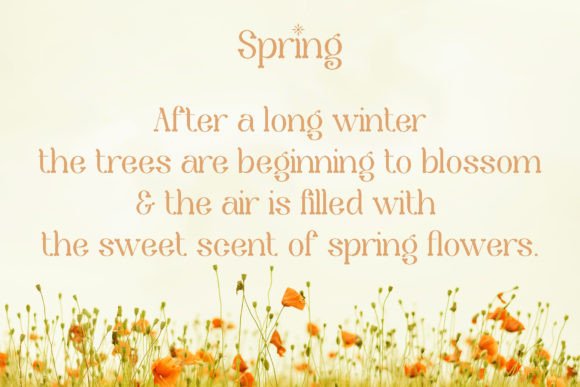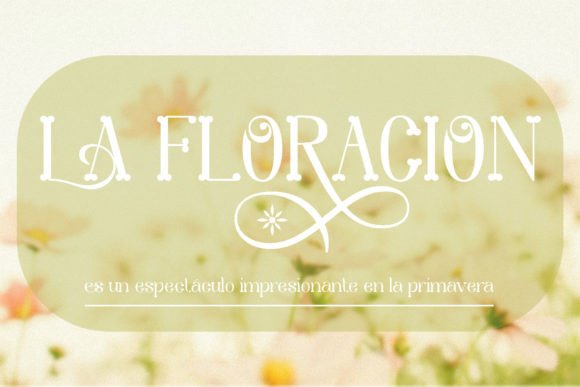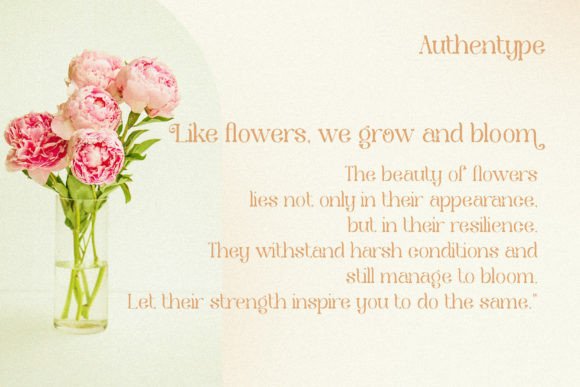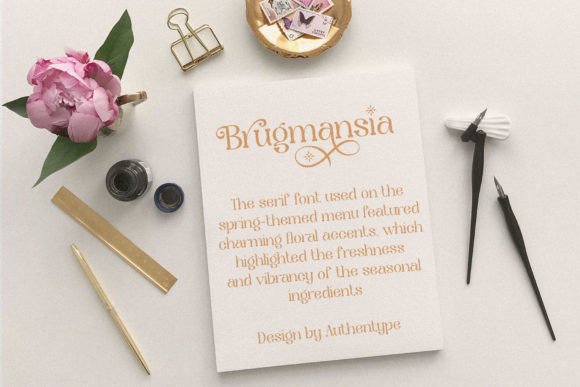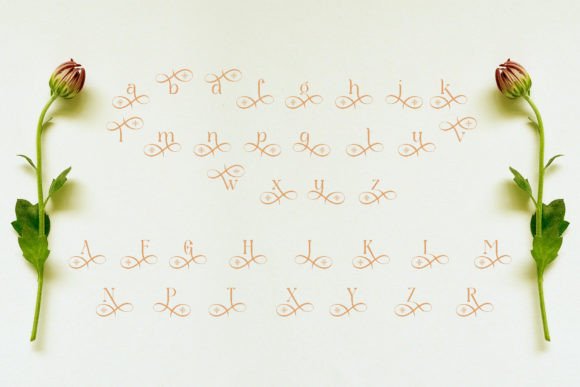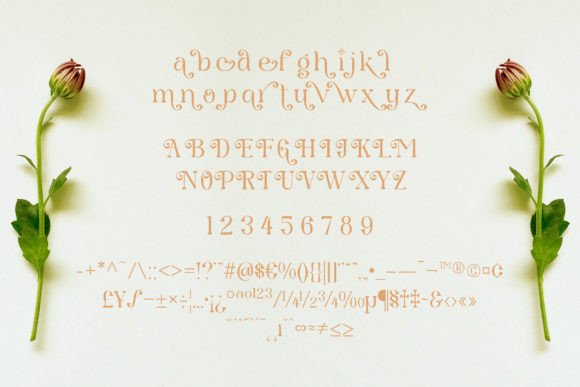
Introducing Brugmansia Font: Elevate Your Designs with Elegance and Sophistication
In the world of typography, few fonts manage to capture the essence of nature’s beauty as exquisitely as Brugmansia Font. Named after the stunning Brugmansia flower, this serif font is a masterpiece of design, blending delicate curves and graceful lines to create a truly unique visual experience. Whether you’re a designer, crafter, or simply someone who appreciates the art of typography, Brugmansia Font is sure to captivate you with its elegance and sophistication.
The Inspiration Behind Brugmansia Font
The Brugmansia flower, also known as the Angel’s Trumpet, is a rare and exotic bloom that has long been admired for its breathtaking beauty. With its trumpet-shaped petals and delicate texture, it’s a flower that exudes refinement and luxury. Brugmansia Font draws inspiration from the intricate details of this flower, translating its elegance into a typographic masterpiece. Each letterform is carefully crafted to reflect the flower’s unique shape and texture, making Brugmansia Font a true work of art.
Design Characteristics of Brugmansia Font
Brugmansia Font boasts a range of design characteristics that make it an exceptional choice for various design projects. Some of its key features include:
- Delicate Curves: Brugmansia Font features smooth, flowing curves that echo the petals of the Brugmansia flower. These curves add a touch of softness and femininity to the font, making it perfect for designs that require a subtle yet sophisticated look.
- Graceful Lines: The font’s lines are carefully crafted to create a sense of fluidity and movement. This makes Brugmansia Font ideal for designs that require a sense of dynamism and energy.
- Serif Details: The serif details in Brugmansia Font are meticulously designed to add a touch of refinement and luxury to any text. These details also enhance the font’s legibility, making it suitable for a wide range of design applications.
Why Choose Brugmansia Font?
Brugmansia Font is more than just a beautiful typeface – it’s a versatile design tool that can elevate any project to new heights. Here are some reasons why designers and crafters love Brugmansia Font:
- Elegance and Sophistication: Brugmansia Font adds a touch of elegance and sophistication to any text, making it perfect for designs that require a high-end look.
- Legibility: Despite its delicate curves and serif details, Brugmansia Font is highly legible, even at small sizes. This makes it suitable for a wide range of design applications, from body text to headings.
- Versatility: Brugmansia Font can be used in various design projects, including logos, websites, print designs, and more. Its versatility makes it a valuable addition to any designer’s toolkit.
Design Applications for Brugmansia Font
Brugmansia Font is a versatile typeface that can be used in a wide range of design applications. Here are some ideas to get you started:
- Logo Design: Use Brugmansia Font to create a stunning logo that captures the essence of your brand. The font’s elegant curves and serif details make it perfect for luxury brands, beauty products, and high-end services.
- Web Design: Add a touch of sophistication to your website with Brugmansia Font. The font’s legibility and versatility make it suitable for body text, headings, and titles.
- Print Design: Brugmansia Font is perfect for print designs that require a high-end look, such as business cards, brochures, and posters.
| Author | Authentype |
In conclusion, Brugmansia Font is a stunning serif font that beautifully captures the essence of the Brugmansia flower. With its delicate curves, graceful lines, and serif details, this font is sure to elevate any design project to new heights. Whether you’re a designer, crafter, or simply someone who appreciates the art of typography, Brugmansia Font is a must-have in your toolkit. So why wait? Discover the beauty and elegance of Brugmansia Font today and take your designs to the next level!